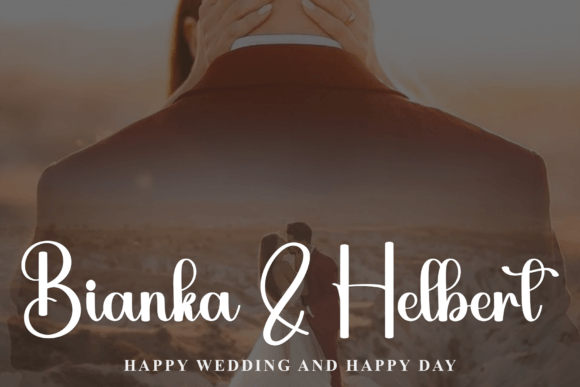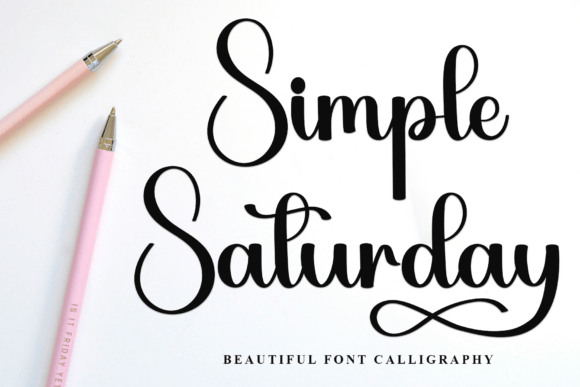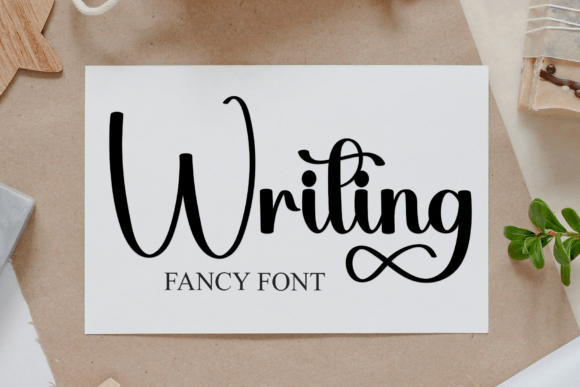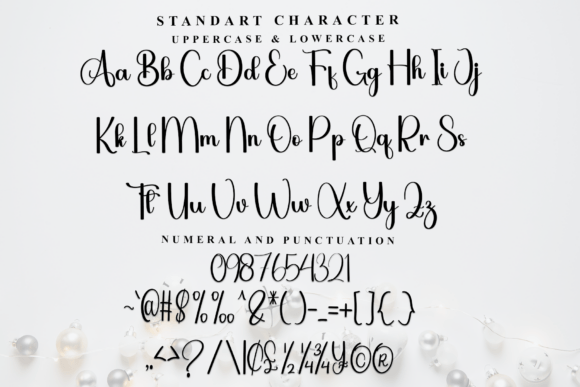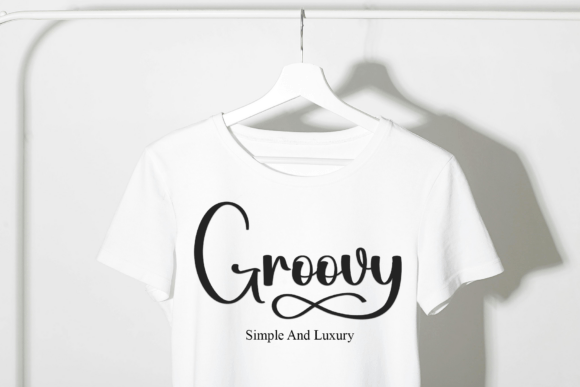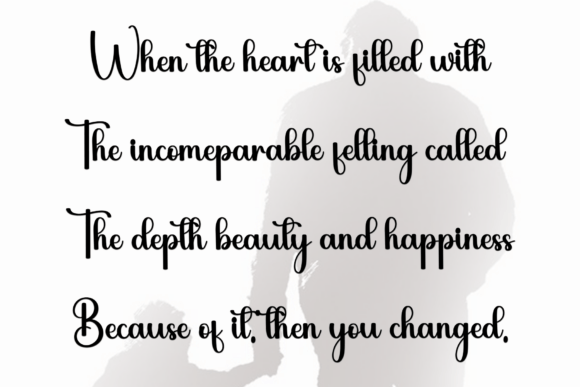
Discover the Charm of Day Daddy Font: Elevate Your Designs with a Timeless Handwritten Style
In the world of typography, a font can make all the difference in creating a lasting impression. For designers and crafters looking to add a personal touch to their projects, Day Daddy Font is a gem worth exploring. This lovely and timeless handwritten font is designed to make your designs stand out, whether you’re creating eye-catching logos, branding materials, or inspiring quotes.
The Unique Charm of Day Daddy Font
What sets Day Daddy Font apart is its unique and beautiful touch. Every letter is carefully crafted to bring a sense of warmth and personality to your designs. Unlike generic fonts, Day Daddy’s handwritten style adds a human element, making your projects feel more approachable and engaging. Whether you’re working on a logo, a branding campaign, or a quote, this font ensures that your message is delivered with style and elegance.
Day Daddy Font is an excellent choice for designers and crafters who want to elevate their work. Its versatility makes it suitable for a wide range of projects, from digital designs to print materials. Here are some ways you can use Day Daddy Font to enhance your designs:
- Logos: Create memorable and impactful logos that capture the essence of your brand.
- Branding: Develop a consistent brand identity with a font that exudes warmth and professionalism.
- Quotes: Add a touch of elegance to your quotes, making them perfect for social media posts, posters, or inspirational cards.
Day Daddy Font is PUA (Private Use Area) encoded, which means you can easily access all the amazing glyphs and ligatures. This feature is particularly useful for designers who want to experiment with different styles and variations without the hassle of complicated font management. With Day Daddy Font, you can:
- Access a wide range of glyphs and ligatures to customize your designs.
- Easily switch between different styles to find the perfect fit for your project.
- Save time and focus on the creative process, rather than getting bogged down in technical details.
Why Choose Day Daddy Font?
With so many fonts available, why choose Day Daddy Font? Here are a few compelling reasons:
- Timeless appeal: Day Daddy Font has a classic, timeless quality that won’t go out of style.
- Unique style: The font’s handwritten style adds a personal touch to your designs, setting them apart from the crowd.
- Ease of use: PUA encoding makes it easy to access and use the font’s features.
- Versatility: Suitable for a wide range of projects, from logos and branding to quotes and more.
Get Creative with Day Daddy Font
Whether you’re a professional designer or a crafter looking to add a personal touch to your projects, Day Daddy Font is an excellent choice. Its timeless handwritten style, ease of use, and versatility make it a valuable addition to your font collection. So why wait? Discover the charm of Day Daddy Font and take your designs to the next level!